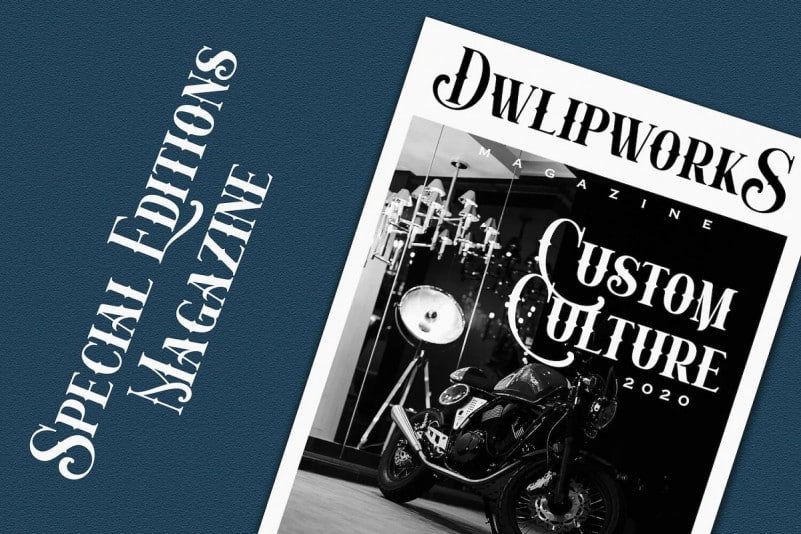
Bristol Maver Display Font
Bristol Maver Font – new modern vintage decorative font manufactured by StringLabs. inspired by the decorative arts and architecture movement. Includes high contrast characters, many beautiful ligatures and different characters variants. This typeface will look truly outstanding in a wide range of contexts.